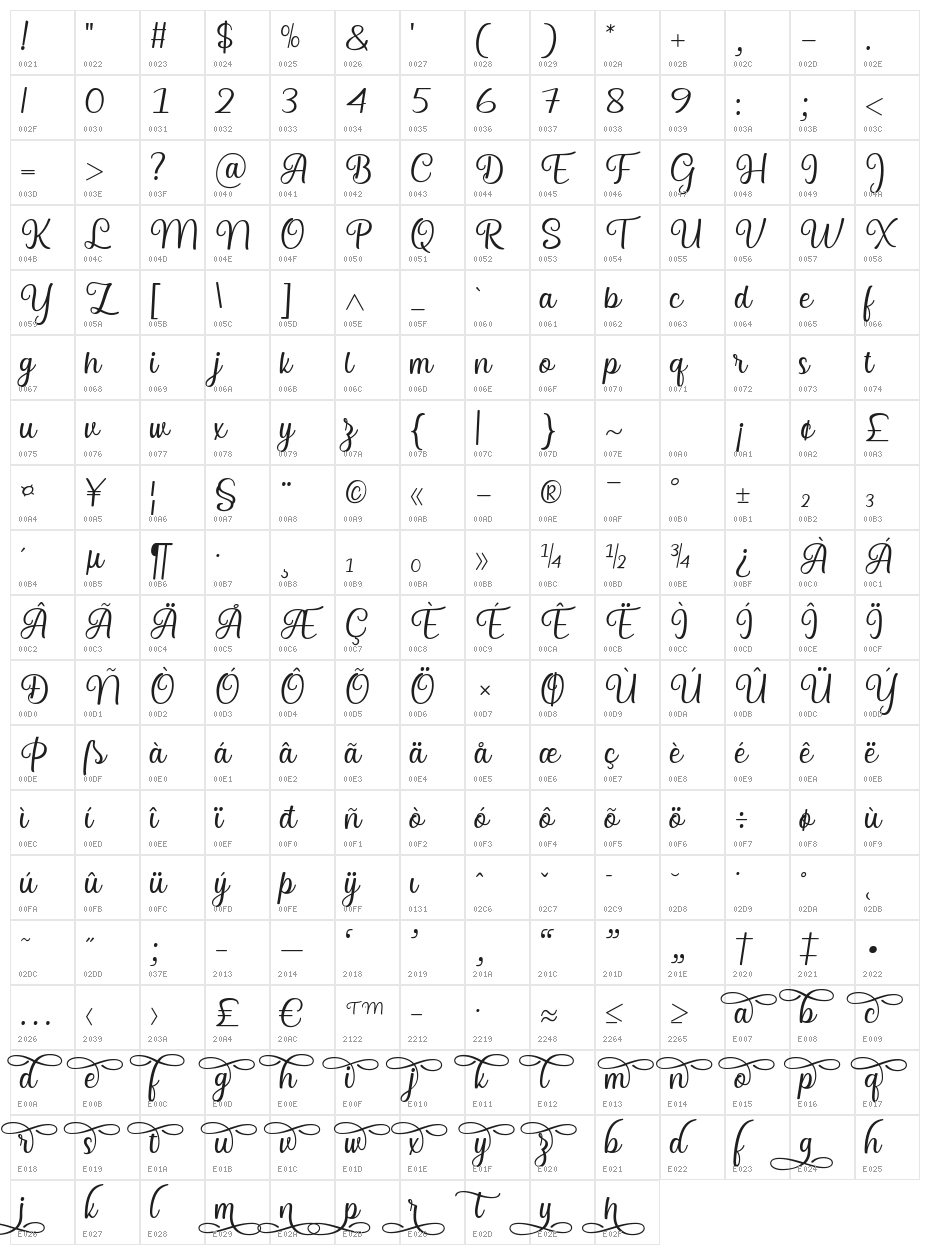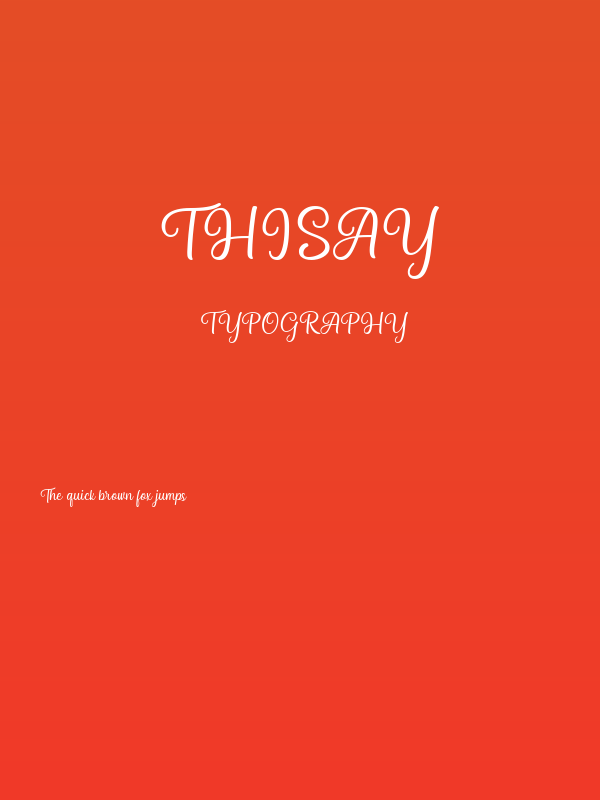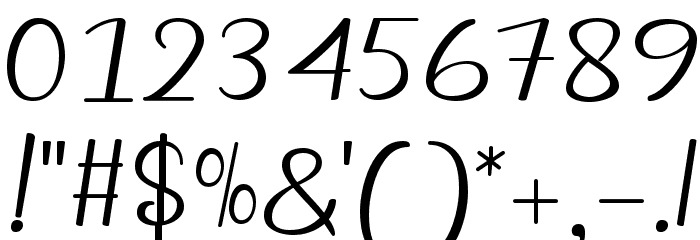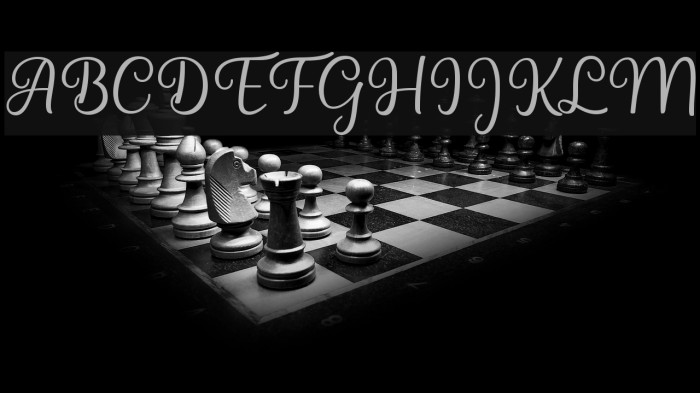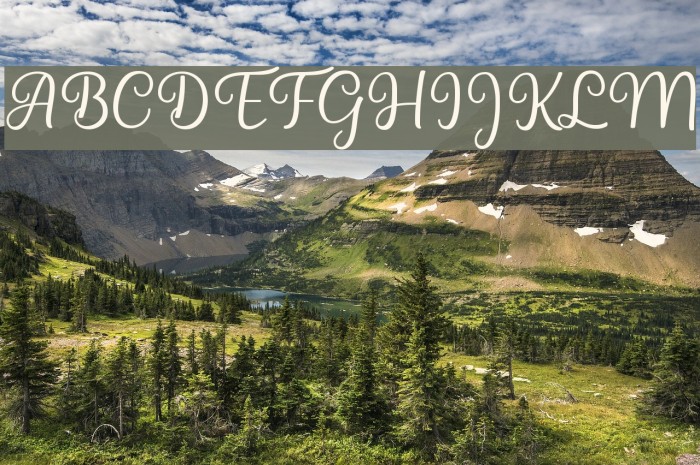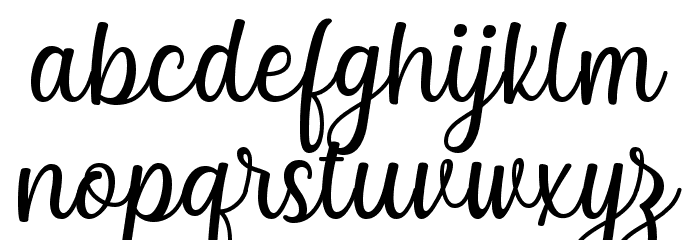
Thisay Font
Thisay Description
This font features a playful and elegant script style with smooth, flowing curves and a handwritten appearance. The uppercase letters are slightly more formal, with a consistent slant and rounded edges, while the lowercase letters maintain a casual and friendly feel. The numerals are clear and easy to read, complementing the overall design. Special characters are well-integrated, maintaining the font's cohesive style. This font is versatile, suitable for a variety of creative projects that require a personal touch.
| Use Case | Logos, Invitations, Social Media Graphics |